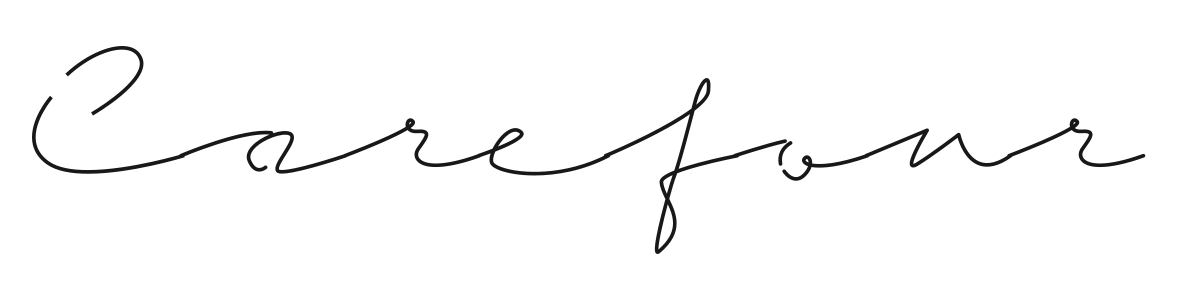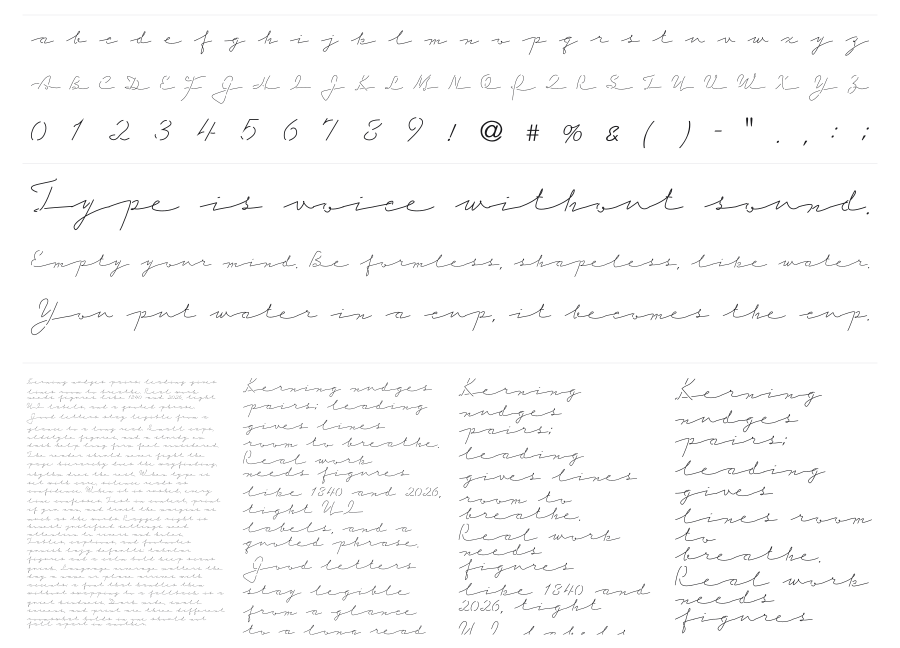
Carefour
Carefour is an ultra-thin cursive script that mimics the look of a fine-point pen moving fluidly across the page. The hairline strokes and long connected flows give it an intimate, personal quality that feels more like a signature than a typeface. It carries a quiet luxury well-suited to editorial, packaging, and identity work where restraint reads as sophistication.